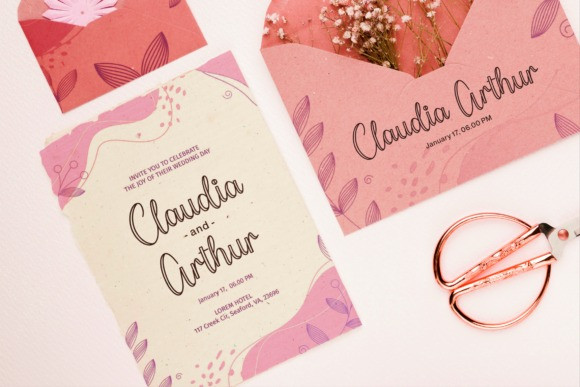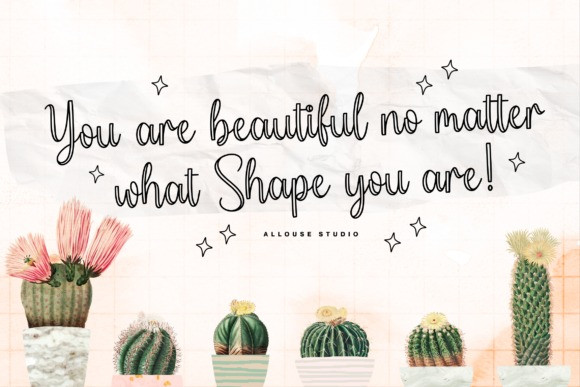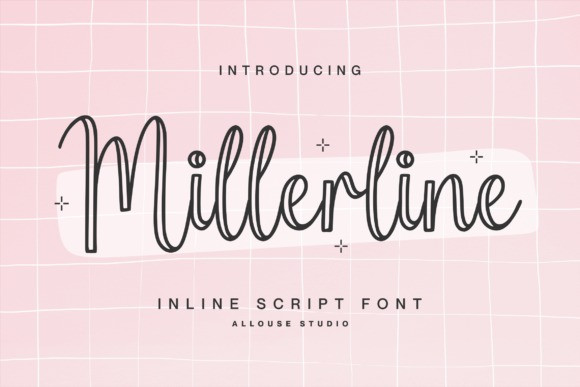
Millerline Font
Millerline Font is a delicate, vintage styled script font. It looks lovely on a variety of design ideas that require a dainty touch. Whatever the topic, Millerline will be a wonderful asset to your font library, as it has the potential to enhance any creation.